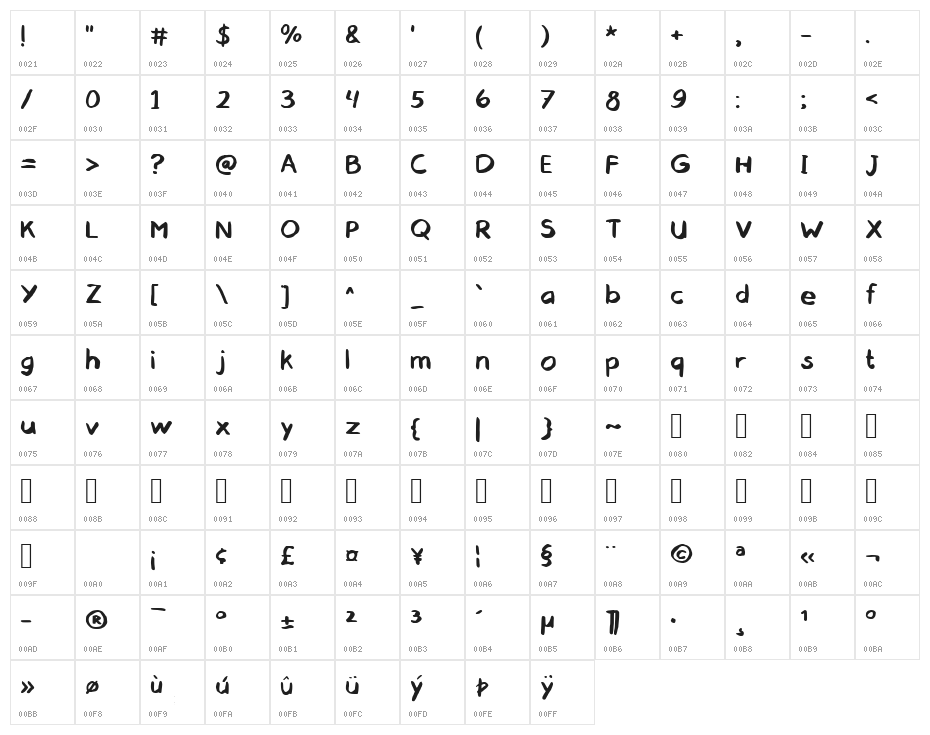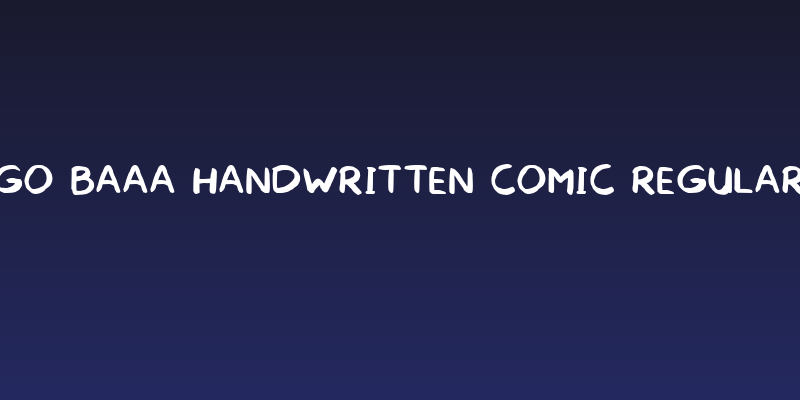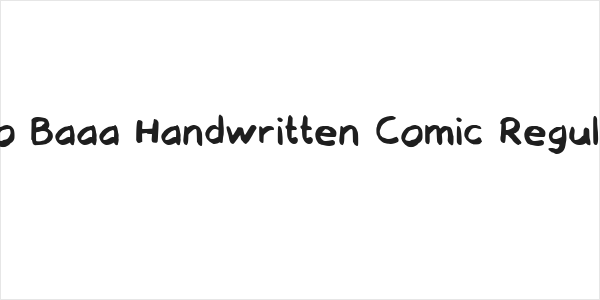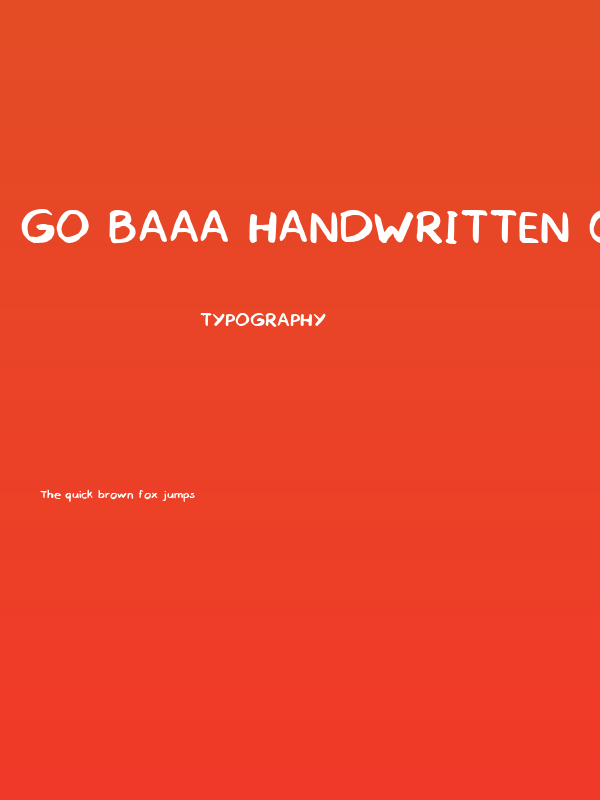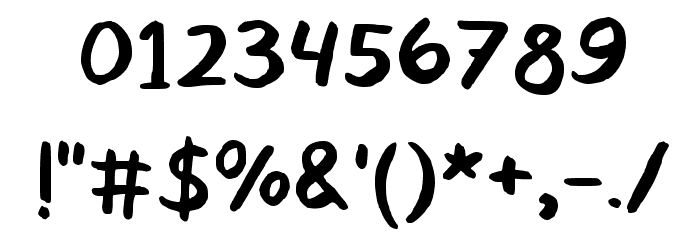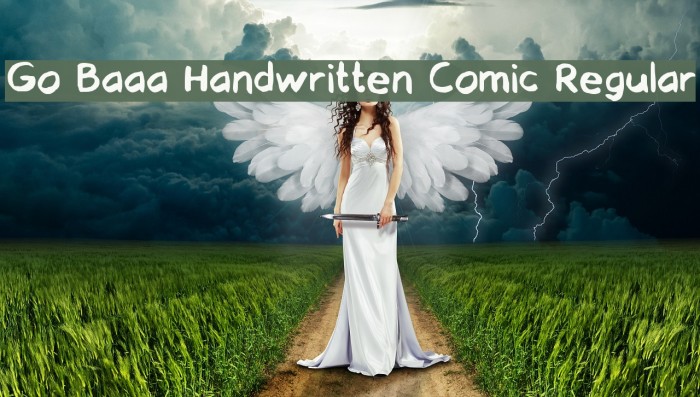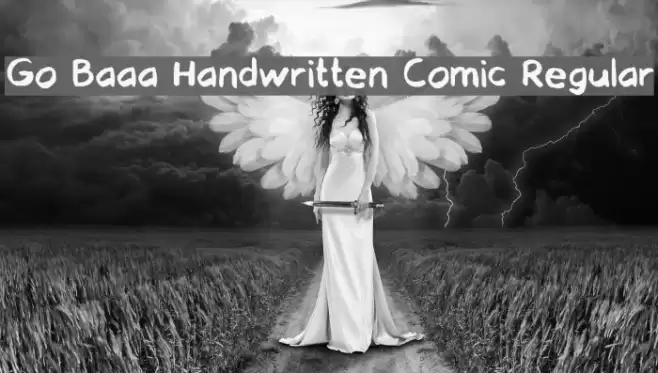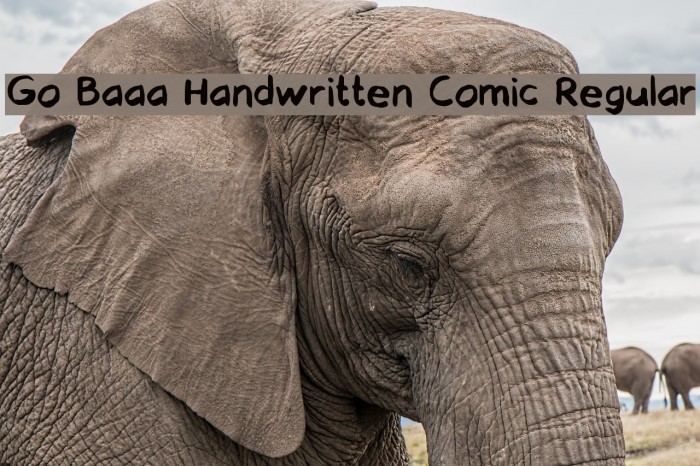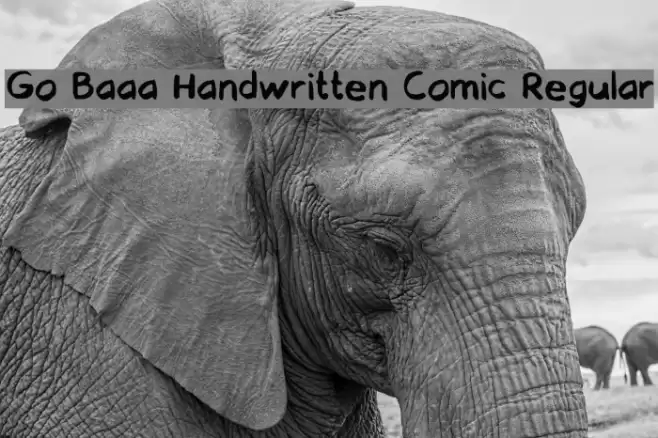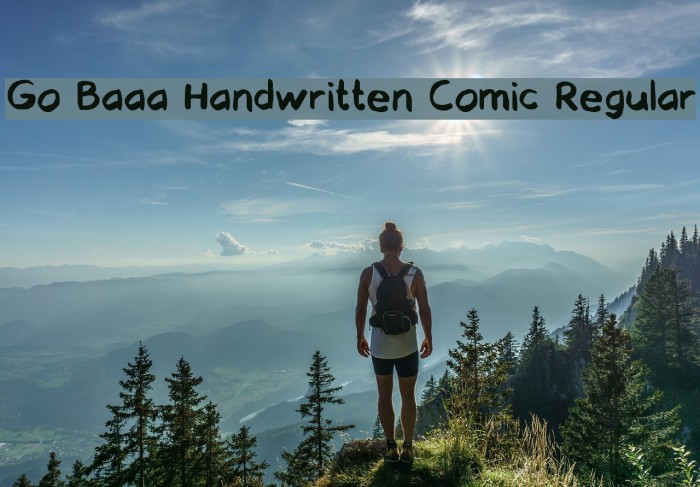
Go Baaa Handwritten Comic Regular Font
| Estilo general | Playful |
| Caso de uso | Headlines, Logos, Informal Text |
| Proyectos propuestos | Ideal for children's books, comic strips, playful branding, and informal invitations. |